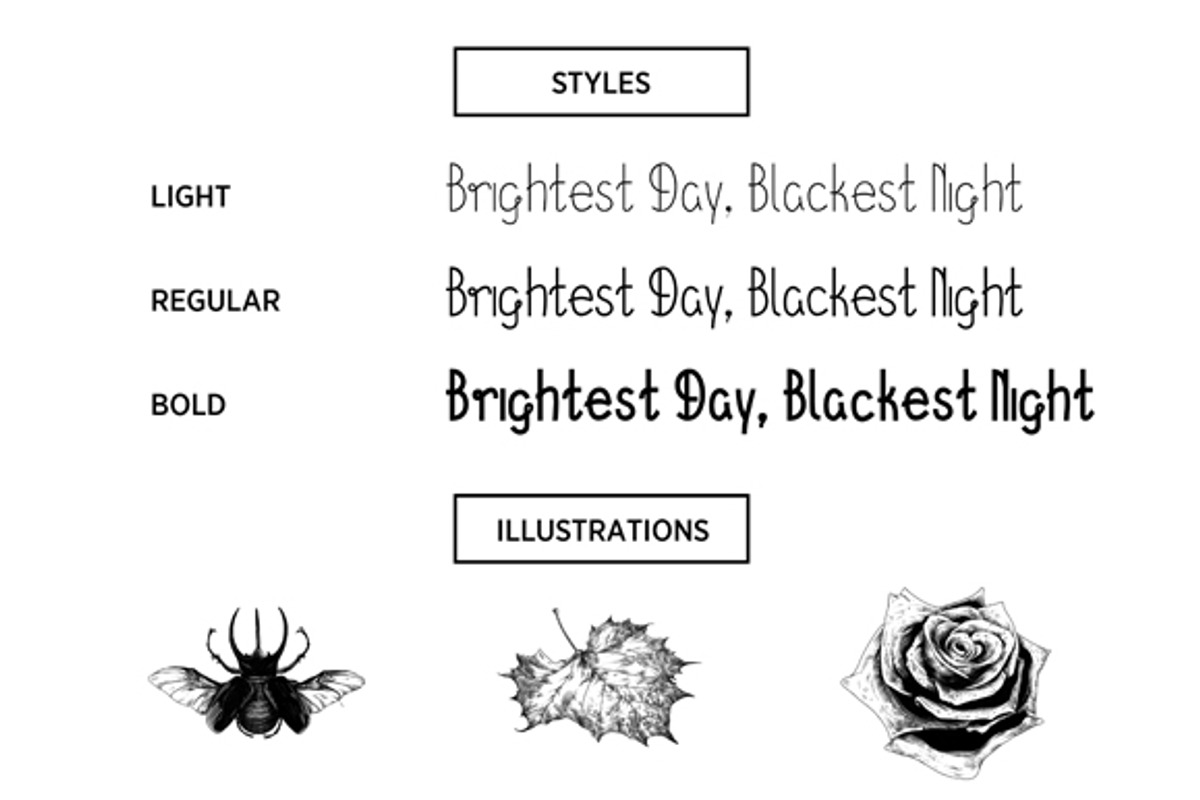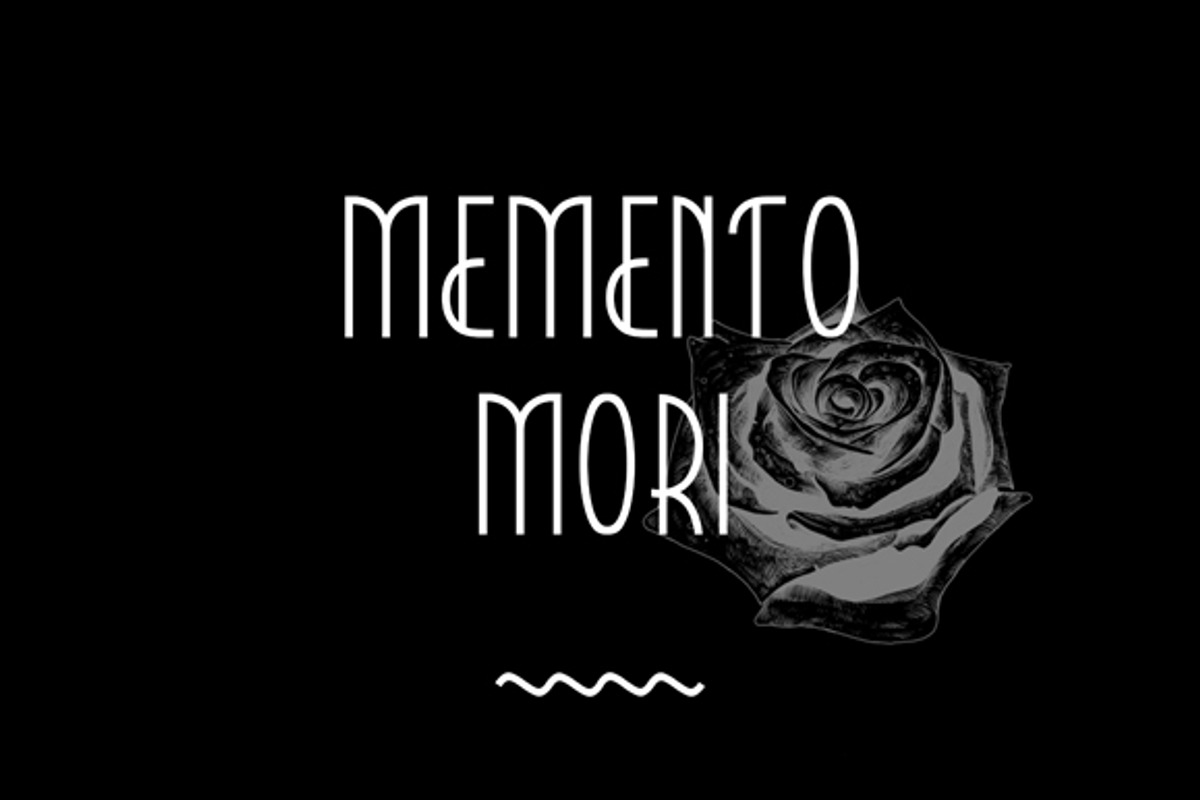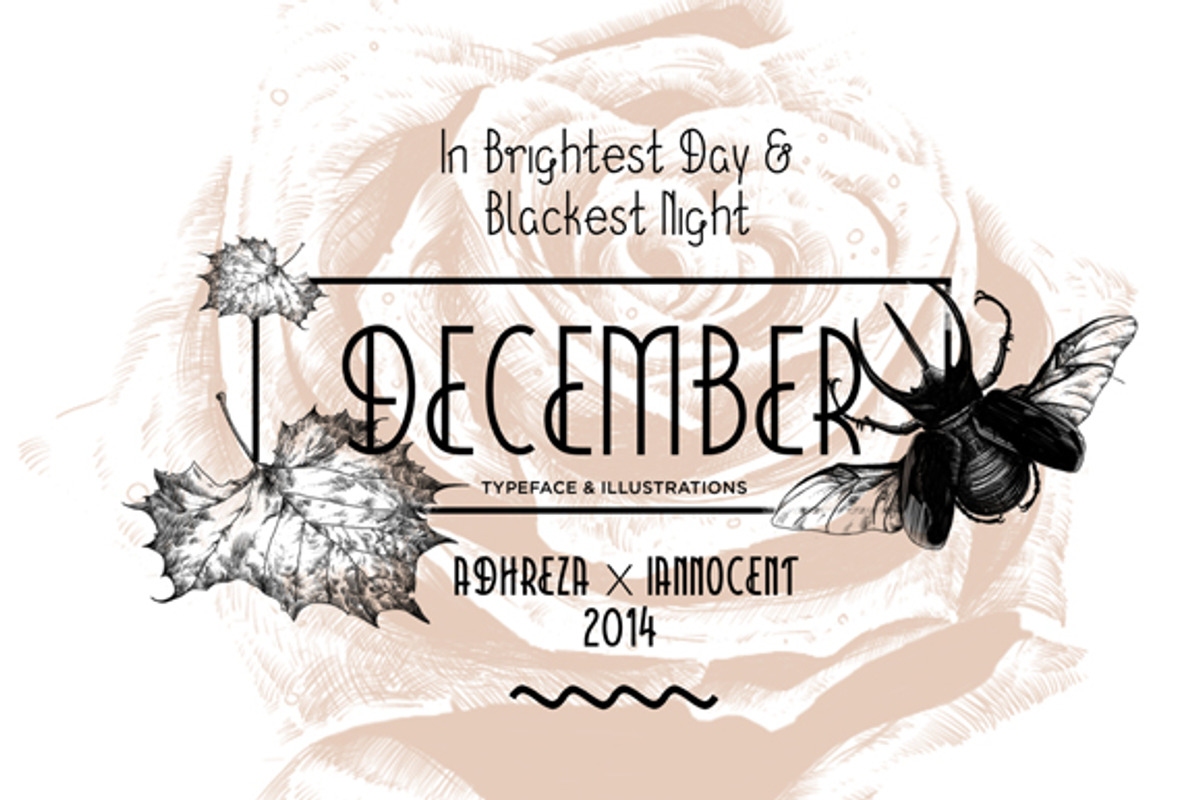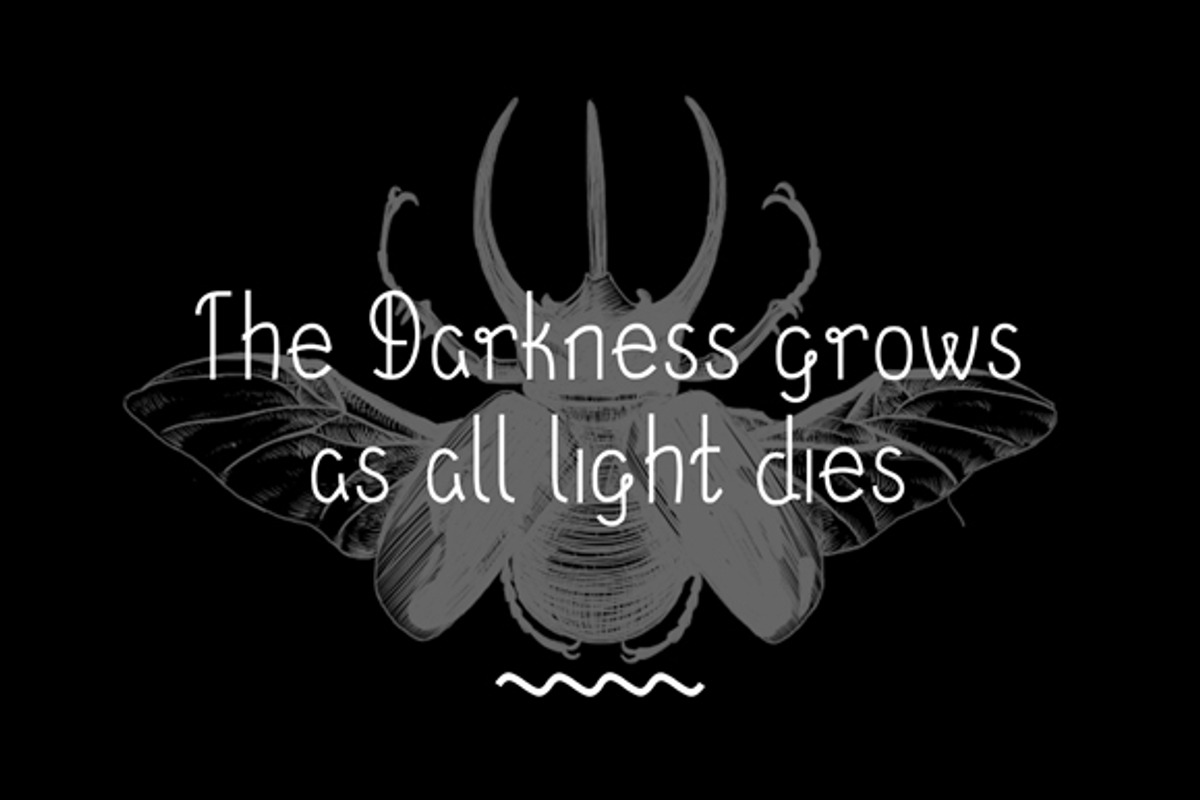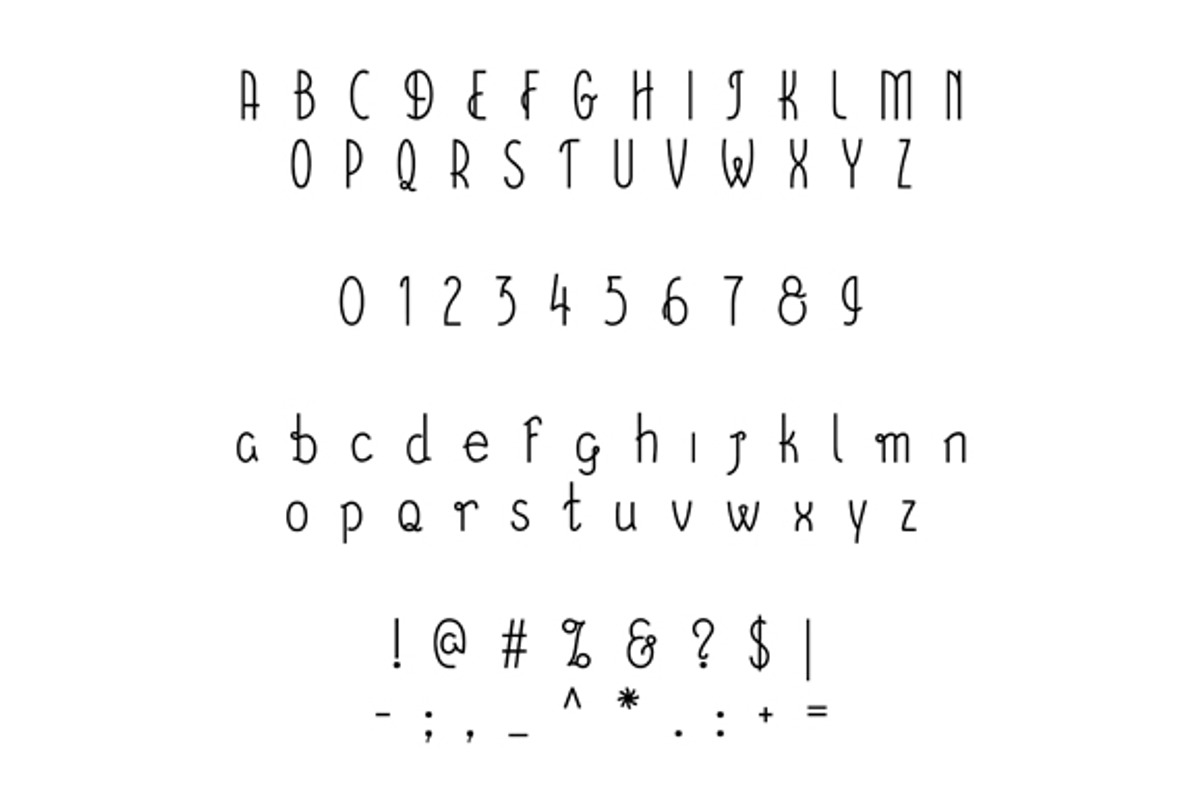
December Typeface (70% Off)
December Typeface (70% Off) by Adhreza is a font selected for branding, posters, packaging, typography.
- A romantic and compassion come by as the progress continued and I collaborate with Iannocent to completed the package with illustrations tha
Why December Typeface (70% Off) is worth a look
December Typeface (70% Off) by Adhreza fits naturally into Branding, posters, packaging, typography.